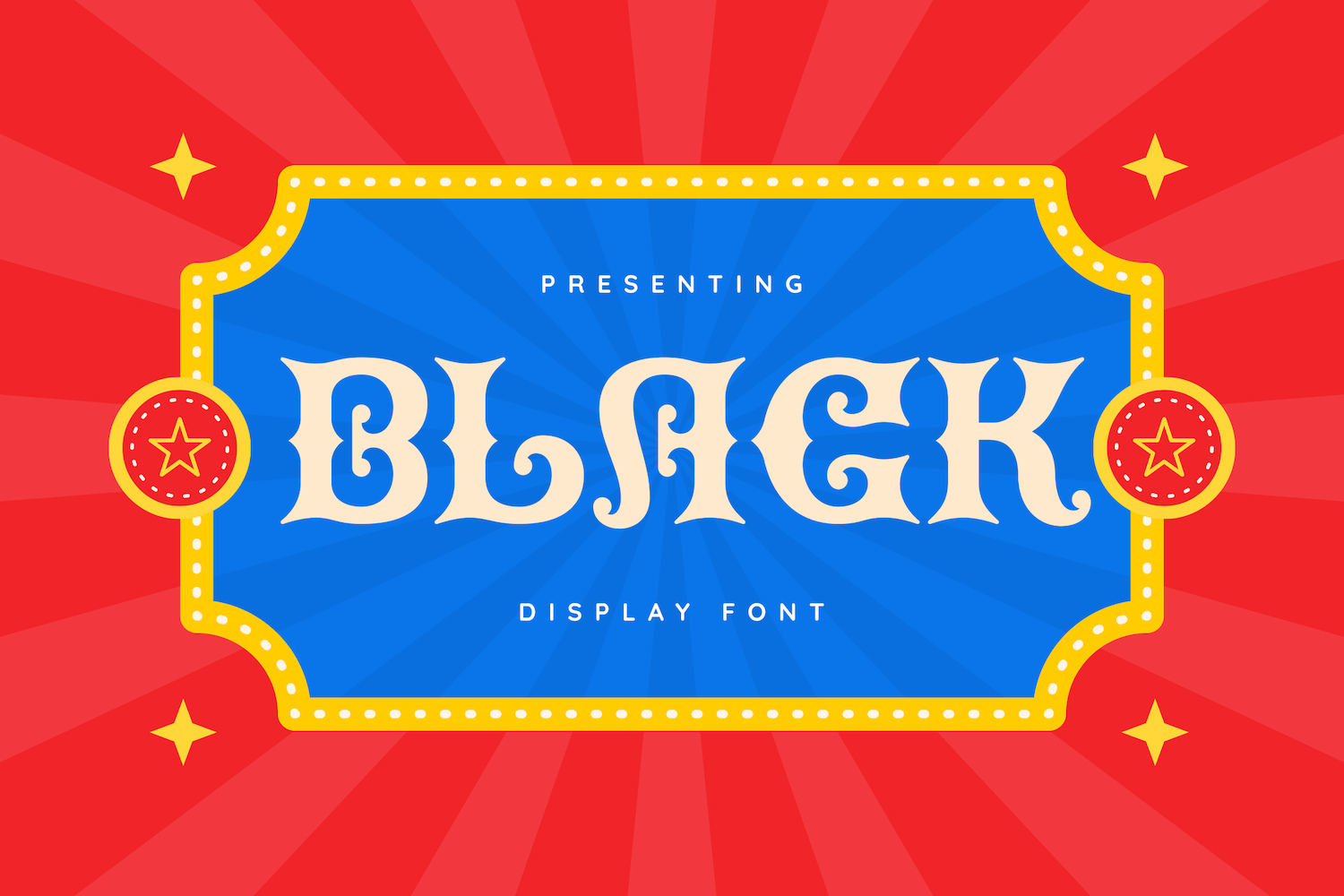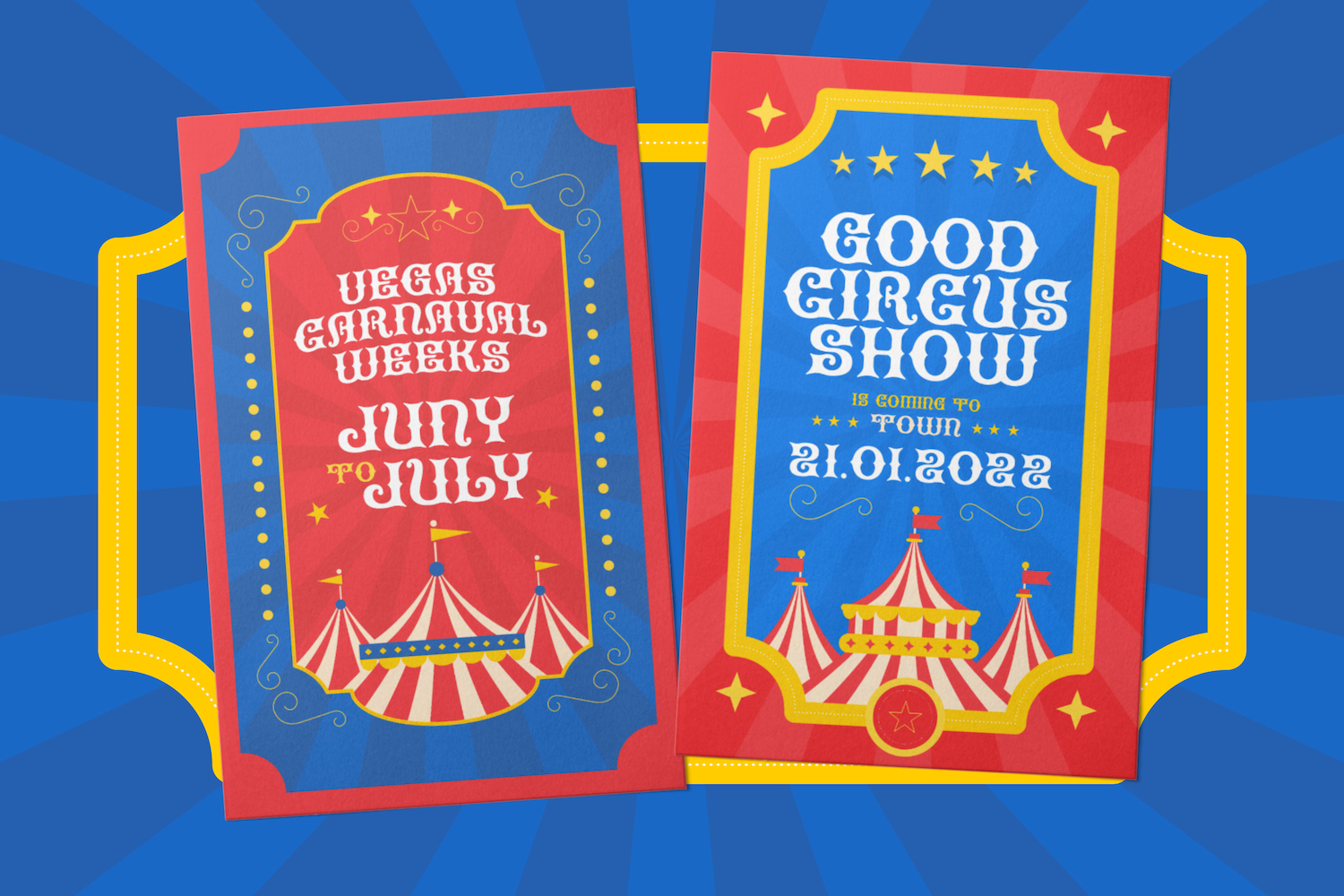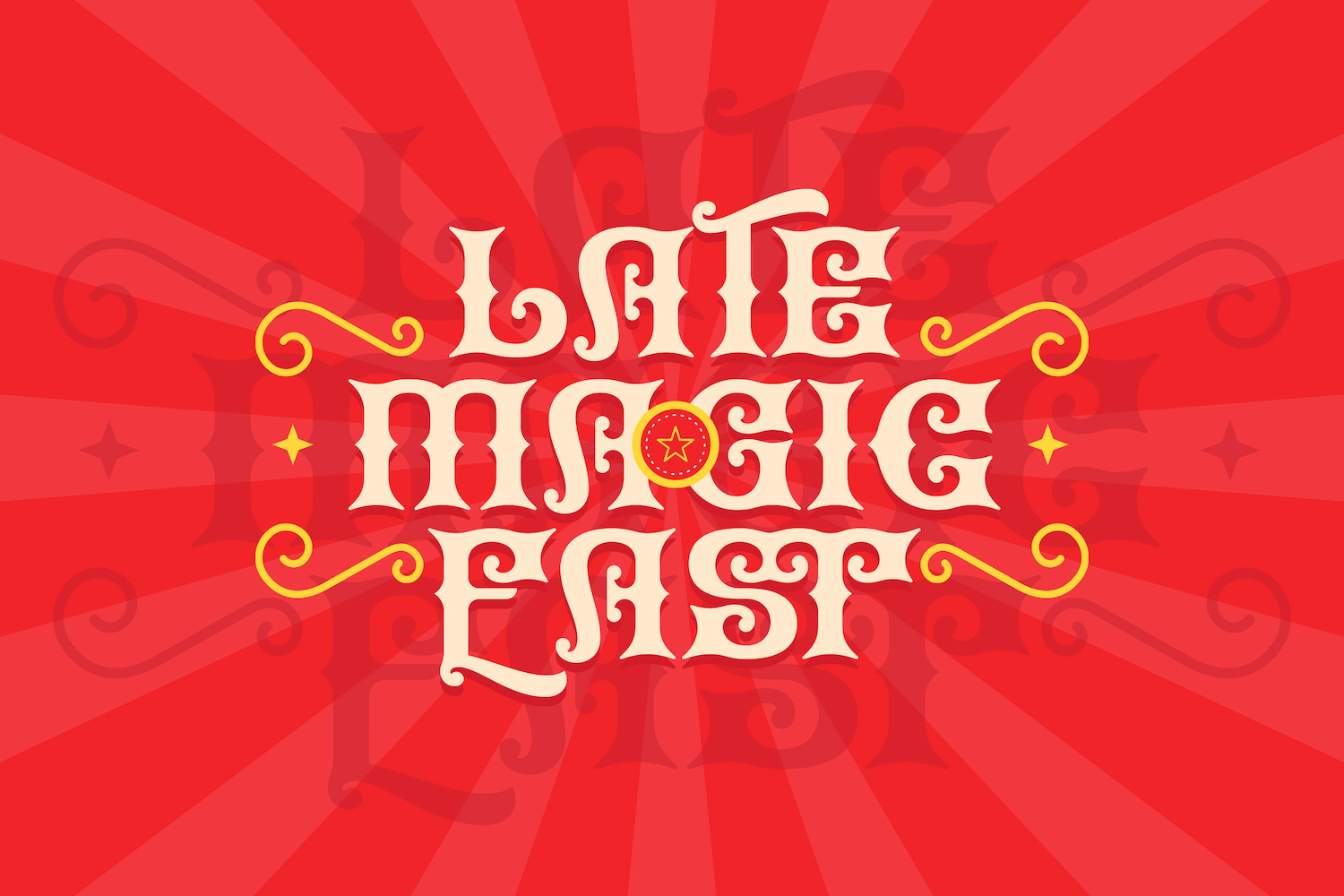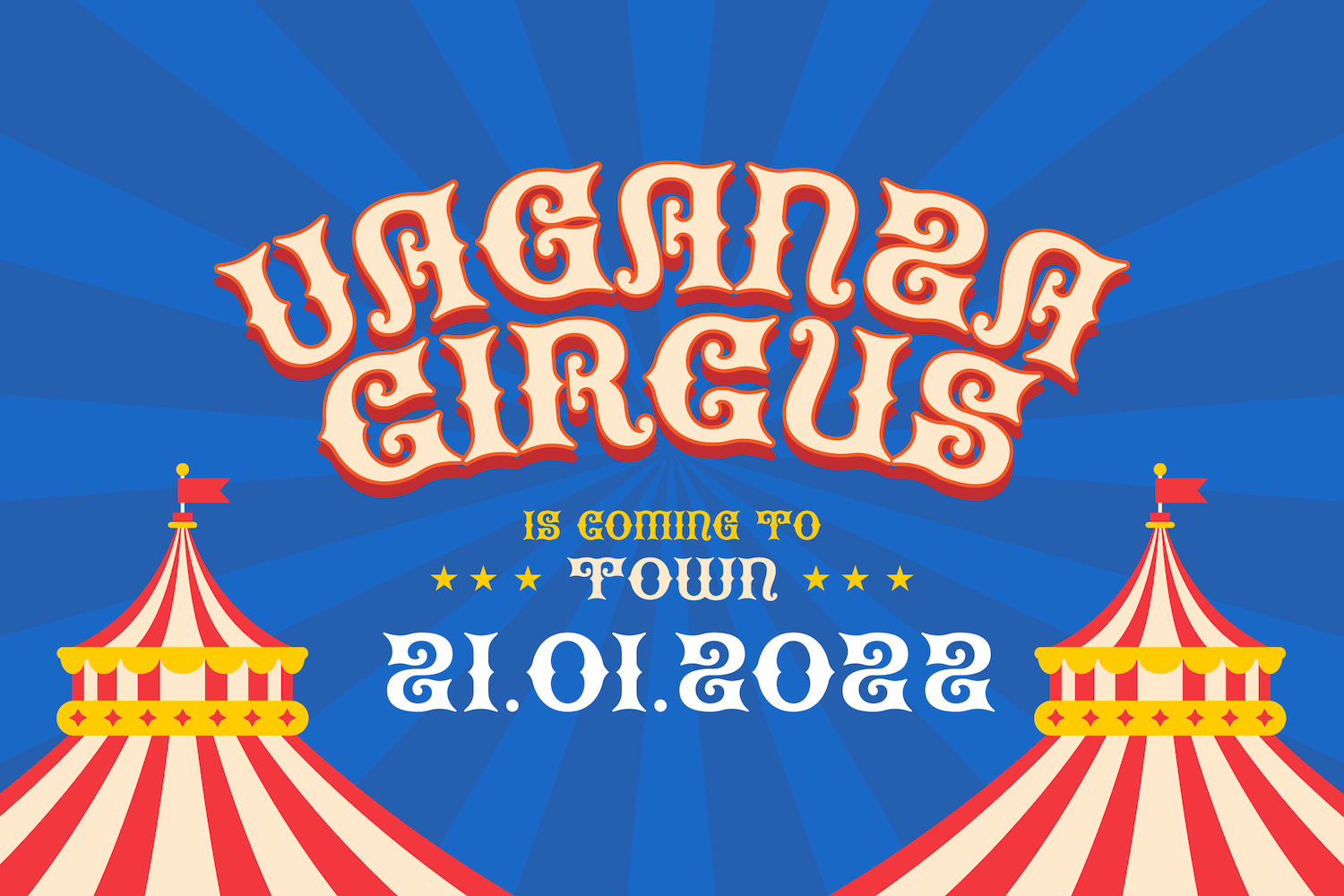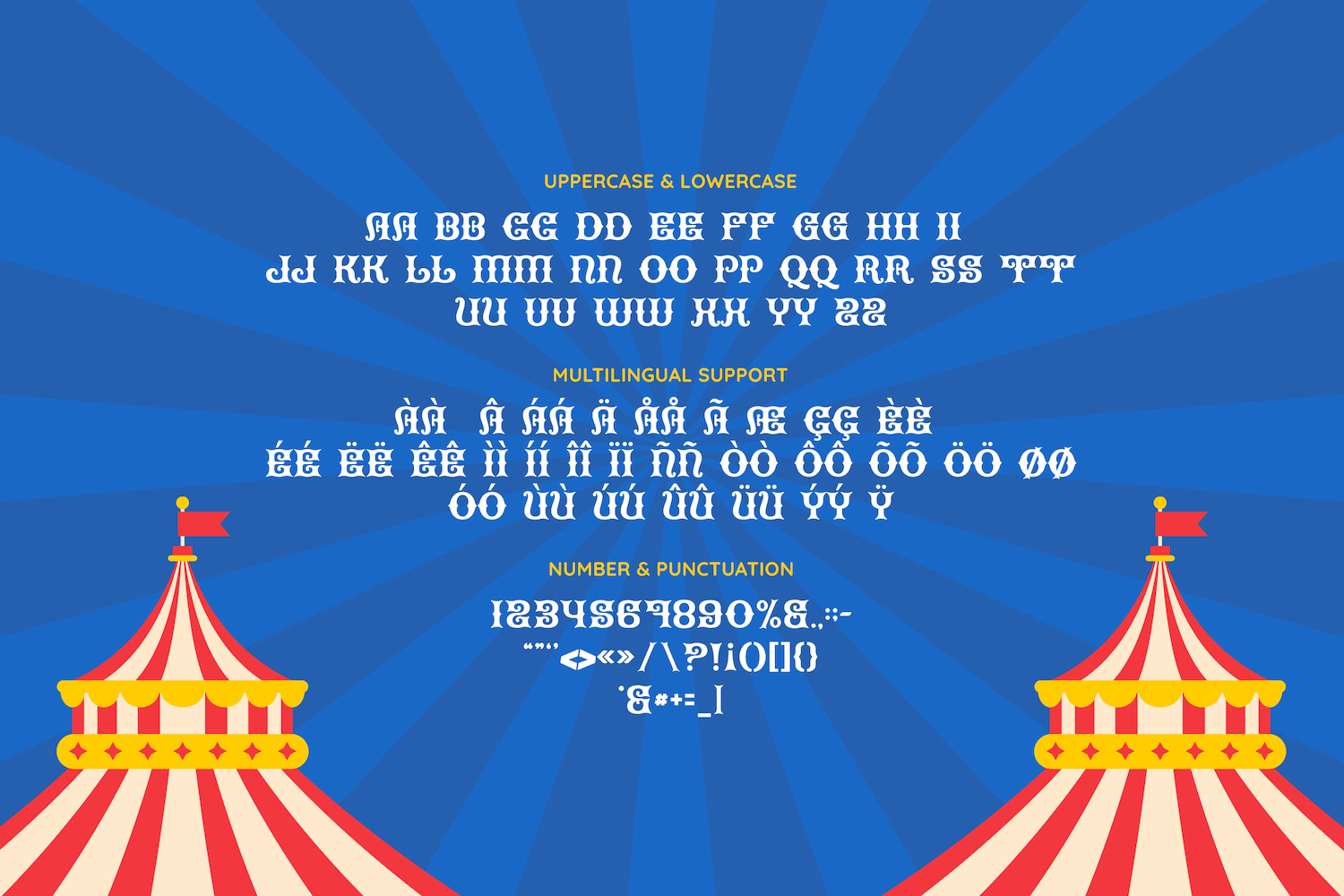
Black is a whimsical and energetic display font inspired by the vibrant world of vintage circuses and carnival posters. With its bold curves, ornamental flair, and theatrical presence, Black captures the excitement and nostalgic charm of showtime events. Each character feels alive with movement, making it the perfect choice for eye-catching headlines and playful branding.
Ideal for posters, kids-themed designs, festivals, or themed merchandise, this font supports multilingual characters and offers a full set of uppercase, lowercase, numbers, and punctuation. Its joyful and bold personality guarantees to steal the spotlight wherever it’s used.